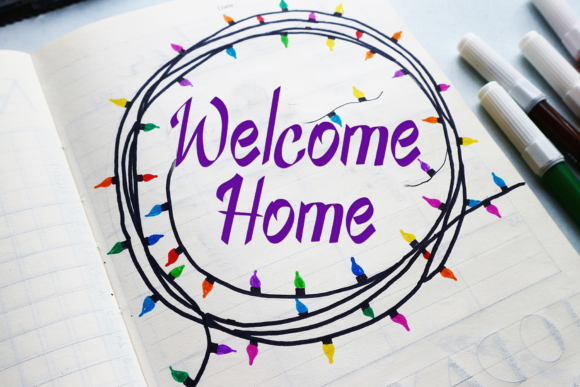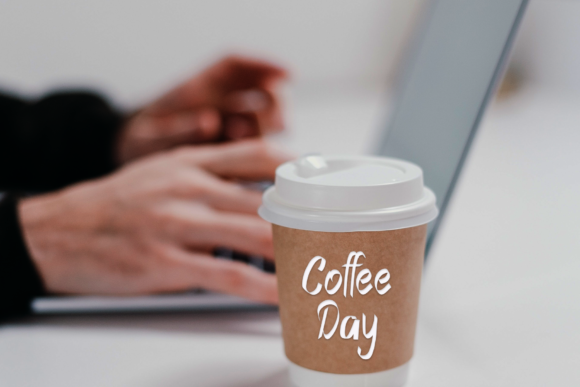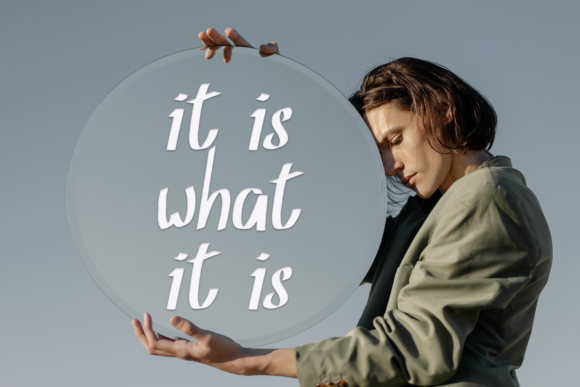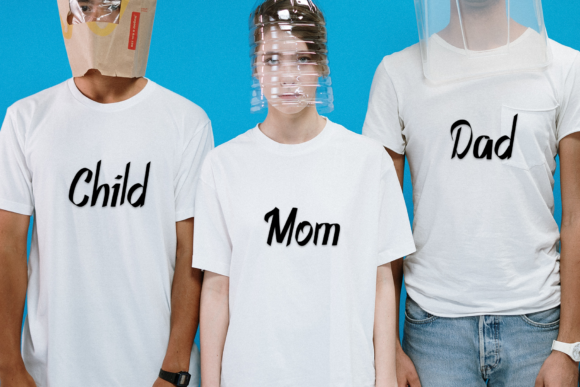
Introduction to Christmas Sublimation Font
As I sat at my desk, surrounded by scraps of paper, paint swatches, and half-finished designs, I stumbled upon a font that changed everything. It was a Christmas Sublimation Font that added a touch of elegance and whimsy to my creative project. The intricate lines and delicate curves seemed to dance across the page, transporting me to a winter wonderland.
For designers, finding the perfect font can be a daunting task. But when you stumble upon a high-quality, free download like the Christmas Sublimation Font, it’s like discovering a treasure trove of design possibilities. With its transparent background and versatile style, this font is perfect for adding a handwritten touch to wedding invitations, greeting cards, and business cards.
Whether you’re a seasoned designer or just starting out, the Christmas Sublimation Font is a valuable resource that can elevate your designs and make them stand out. So why settle for a generic font when you can add a touch of magic to your creative project with this stunning font?
Key Features of Christmas Sublimation Font
- High-quality design resource ideal for creative projects, especially those requiring a festive touch.
- Comes with a transparent background, allowing for easy layering and customization in various design applications.
- Unique, intricate design featuring classic Christmas elements, making it perfect for holiday-themed merchandise, decorations, and more.
- Includes a range of sizes and resolutions, from 100 to 1000 DPI, to suit various printing and sublimation needs.
- Perfect for use in sublimation printing, heat transfer, and other creative applications where high-quality, detailed designs are essential.
Honest Review: Christmas Sublimation Font
As a designer, I’m always on the lookout for high-quality design resources to elevate my creative projects. Recently, I stumbled upon the Christmas Sublimation Font, and I’m excited to share my thoughts on this free download.
The font is beautifully designed, with intricate details and a clear, transparent background that makes it perfect for sublimation printing. I love how versatile it is – from ornaments to decorations, this font is sure to add a touch of festive magic to any project.
- ✨ High-quality design with intricate details
- ✨ Clear, transparent background ideal for sublimation printing
- ✨ Versatile design suitable for various creative projects
- ⚠️ Limited character set, which may not be suitable for longer text
- ⚠️ Some letters may not be legible at smaller font sizes
Overall, I’m impressed with the Christmas Sublimation Font. While it has some limitations, its unique design and transparent background make it a valuable addition to any designer’s toolkit. If you’re looking for a high-quality design resource for your creative projects, this font is definitely worth checking out.
Experiment with different font sizes and styles to create a unique look. Combine the font with other design elements, such as images and shapes, to add depth and interest to your design.
Q: Can I customize the Christmas Sublimation Font to fit my specific design needs?
Yes, you can customize the Christmas Sublimation Font to fit your specific design needs. The font is highly versatile and can be easily modified using design software like Adobe Illustrator or